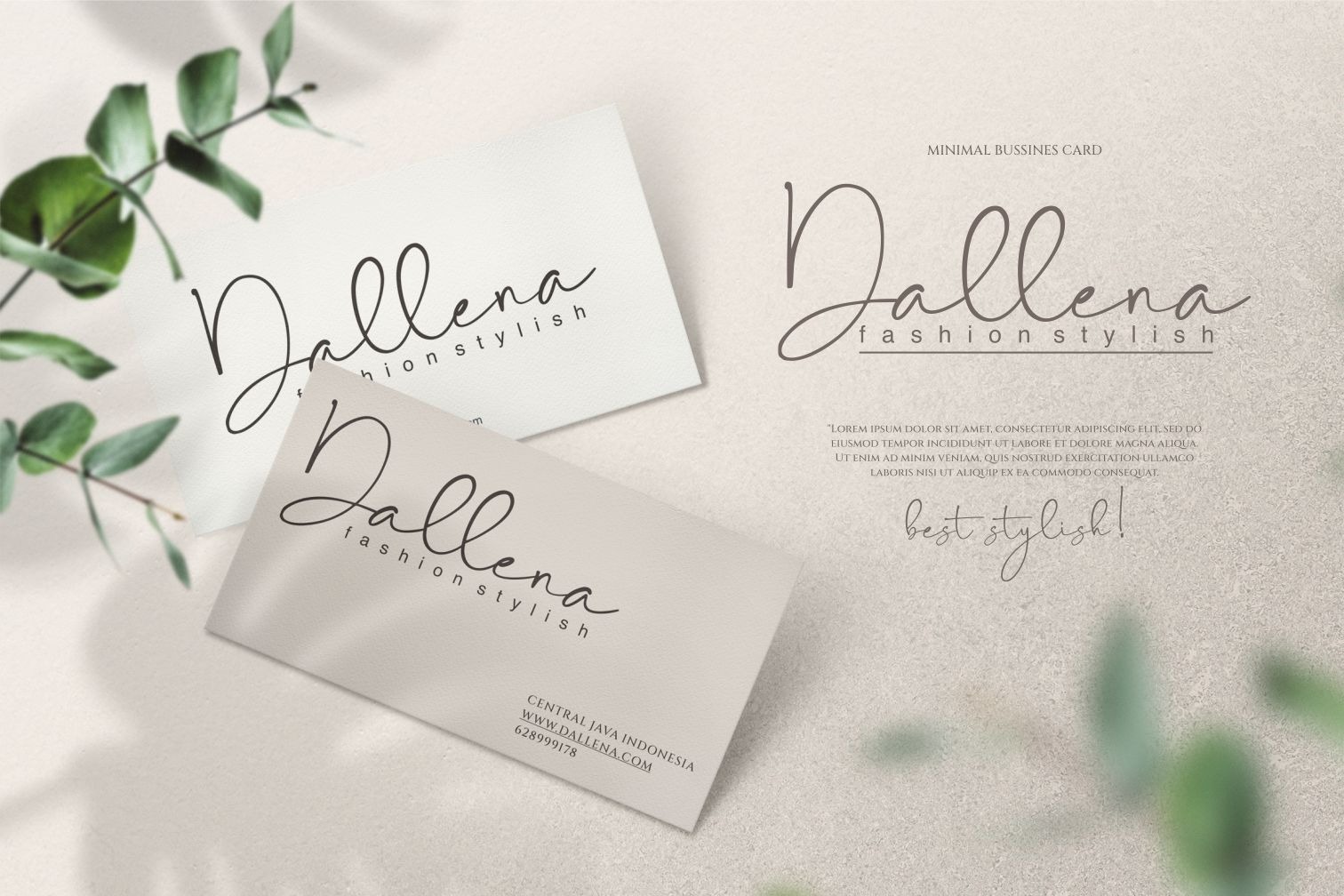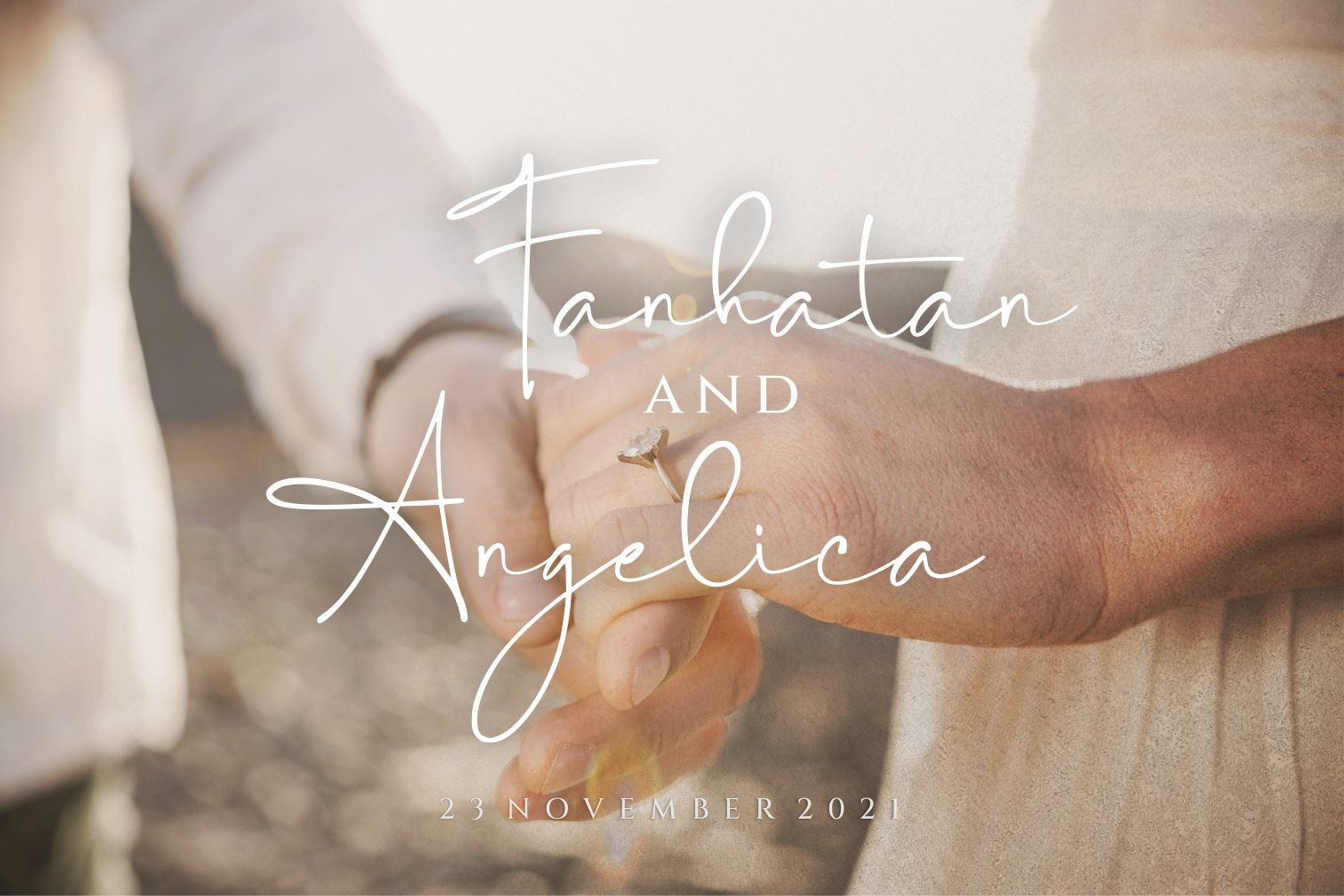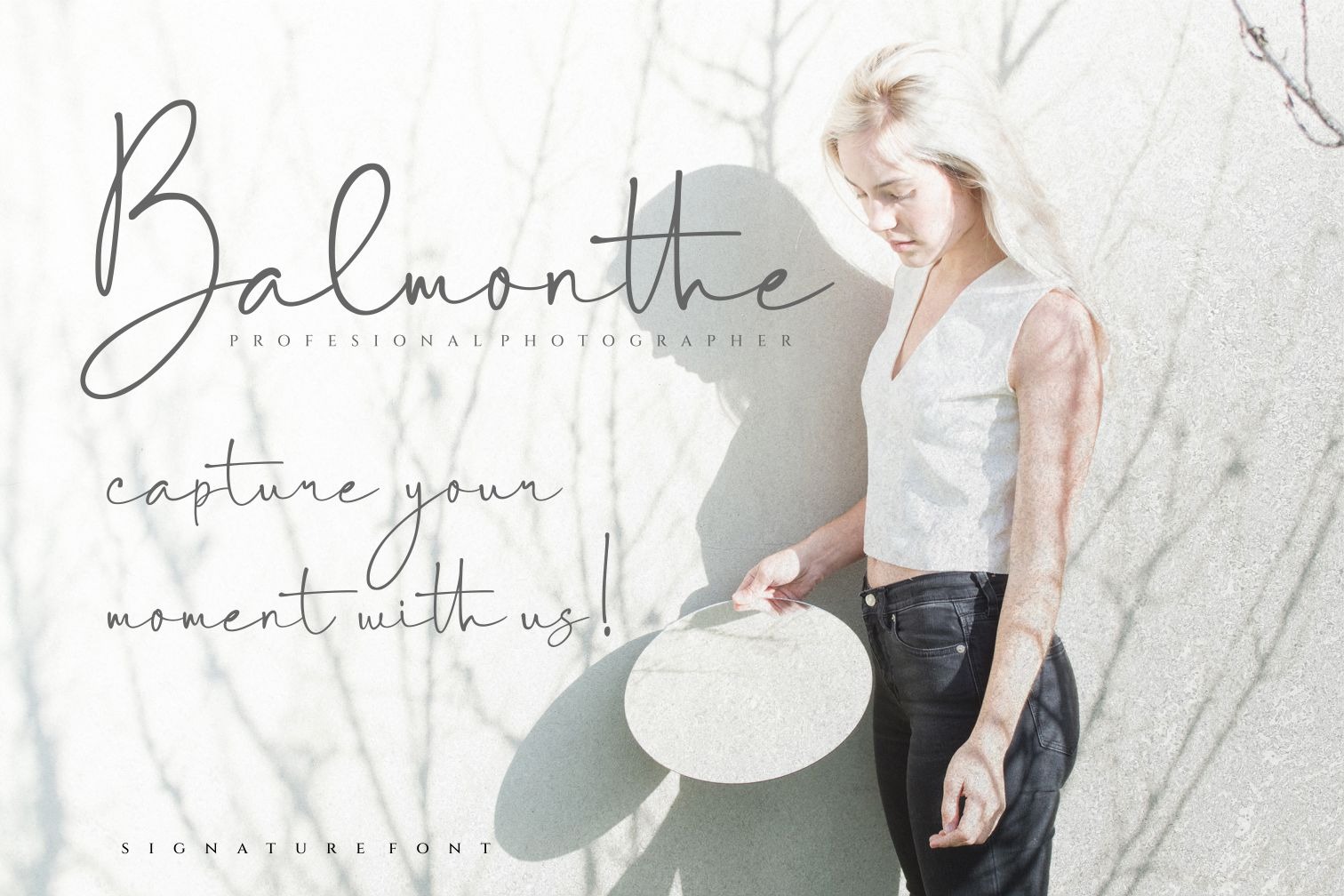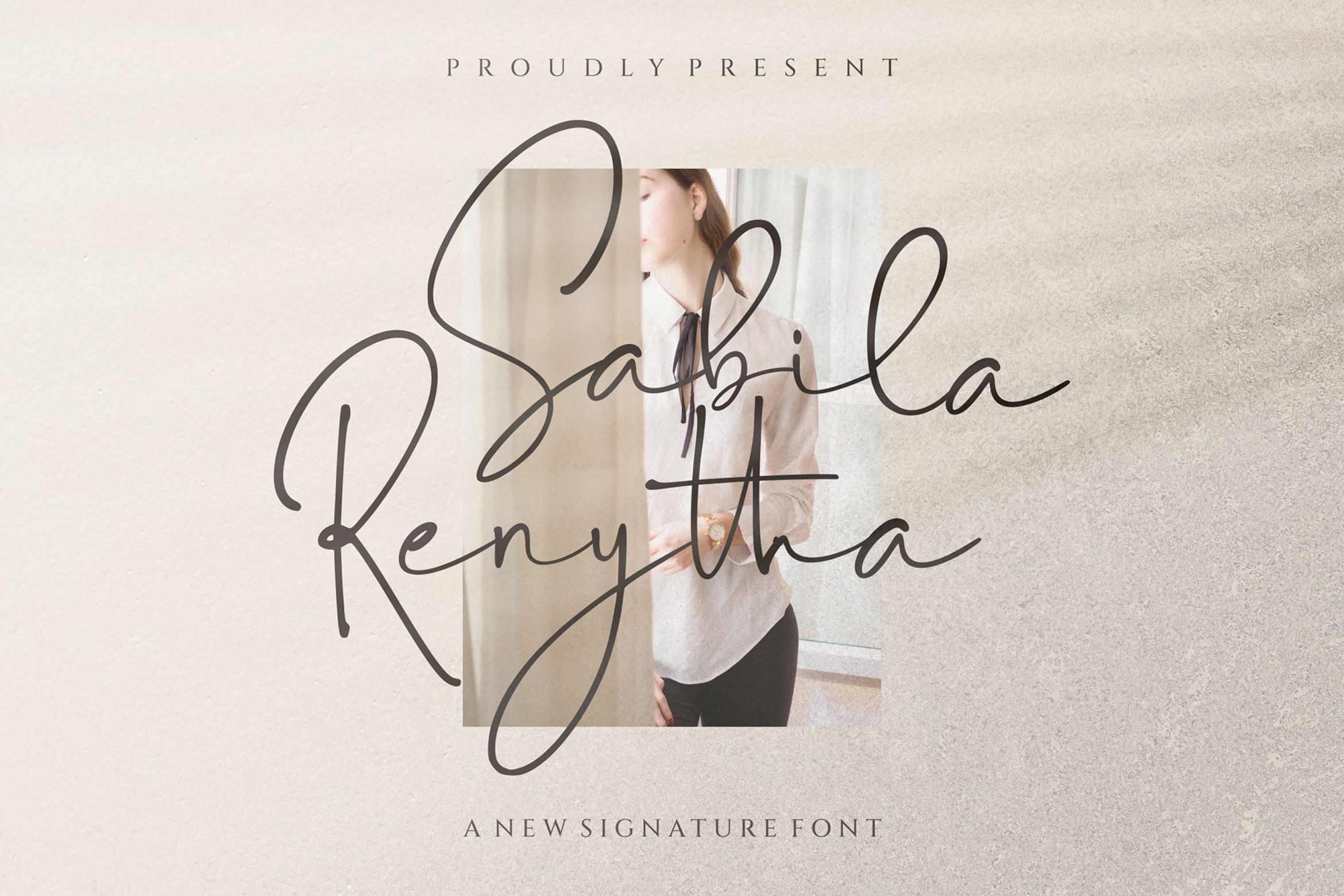
Sabila Renytha Script Font is a splendid script typeface inspired by beautiful curves. This typeface is suitable for paper,fabric,business cards, clothing, gift cards, invitations, signage, and more. This font is PUA encoded,which means you can access all of the amazing glyphs and ligatures with ease!